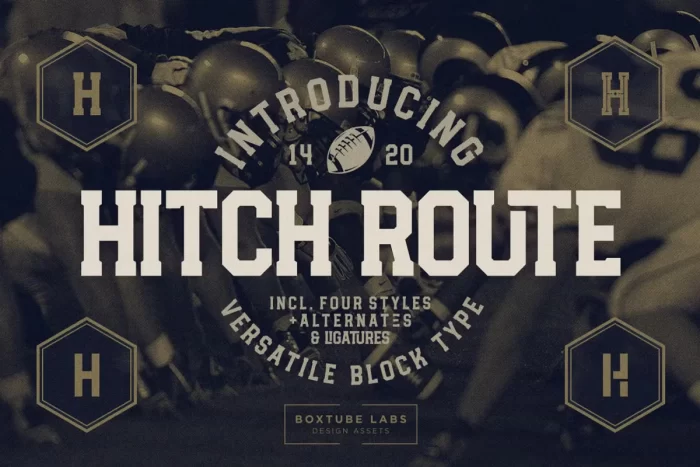
Hitch Route is a true sports branding work horse. It’s classic with a modern edge and most importantly; packed with different styles, ligatures and stylistic alternates – making it easy to create unique characteristics to your projects. It’s incredibly versatile and perfect for sports logos, branding, posters, apparel design, magazine headlines, labels and so much more.